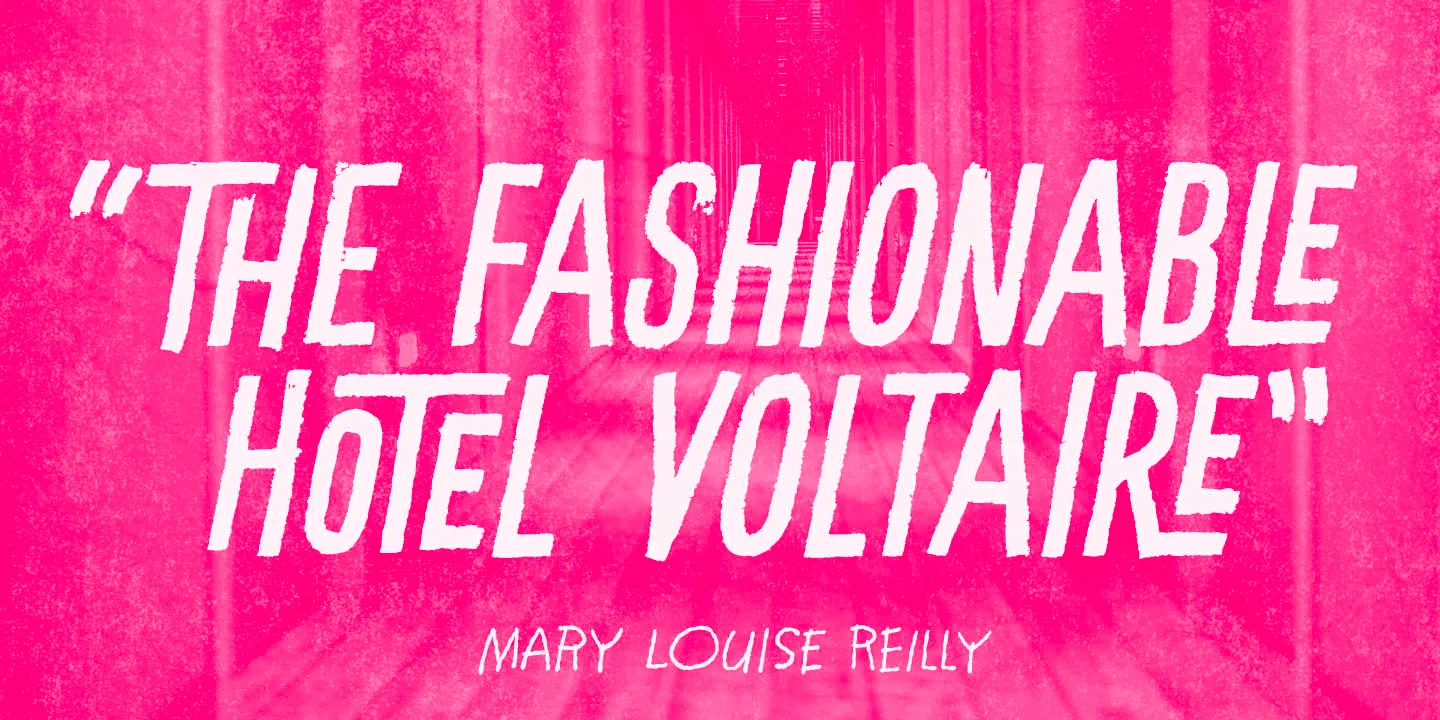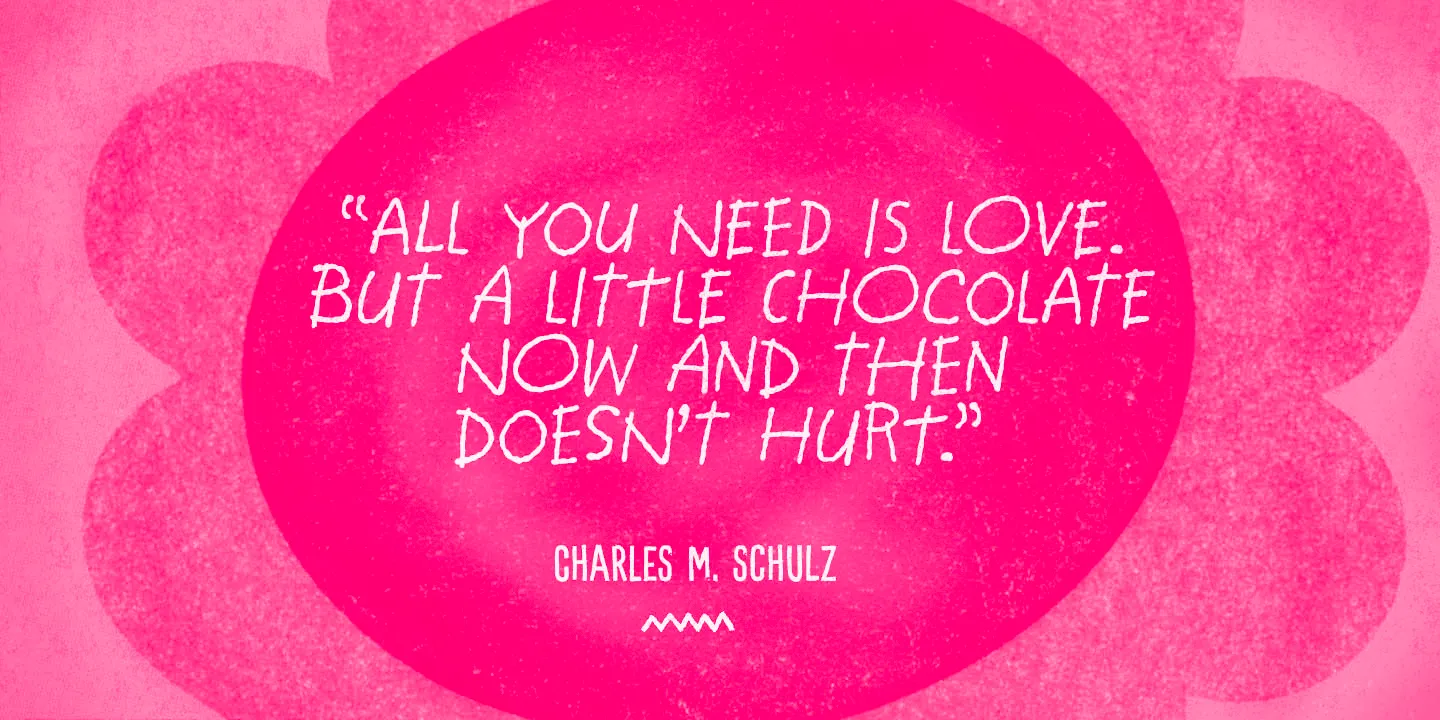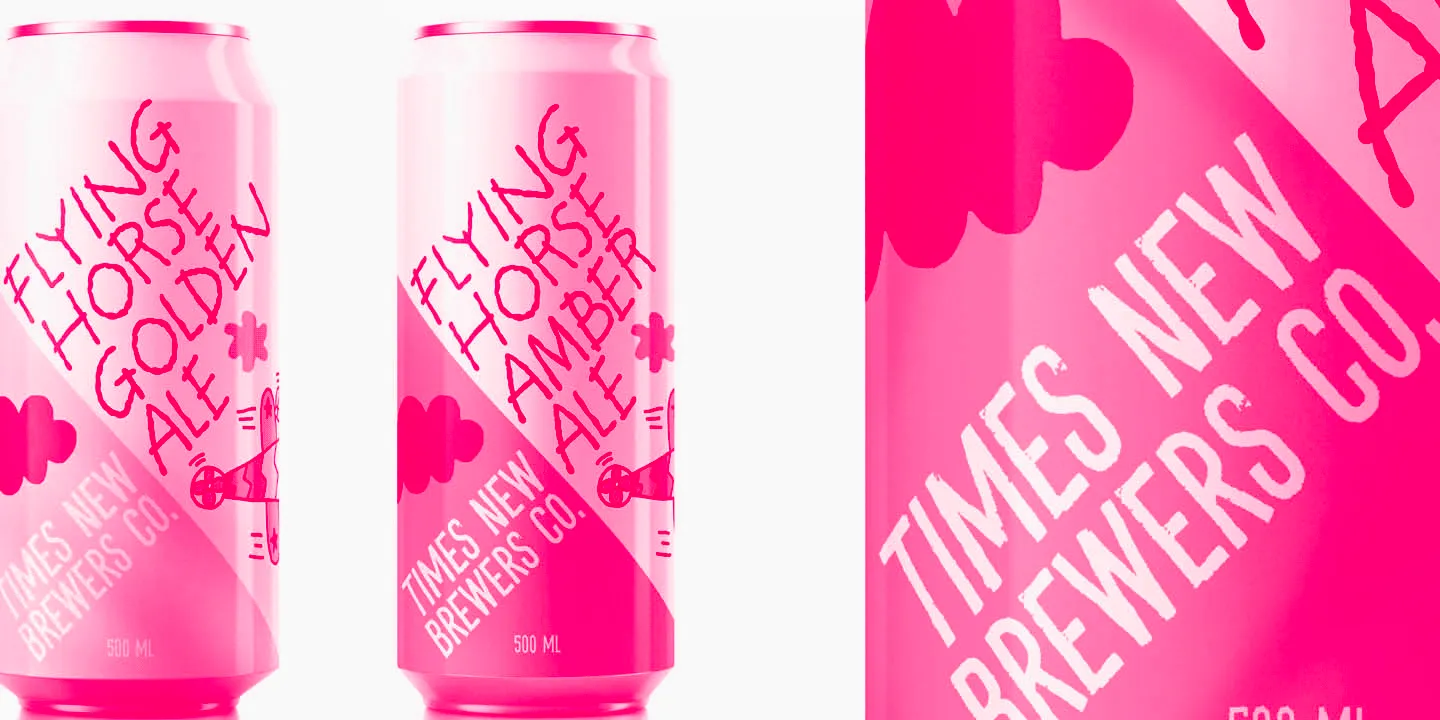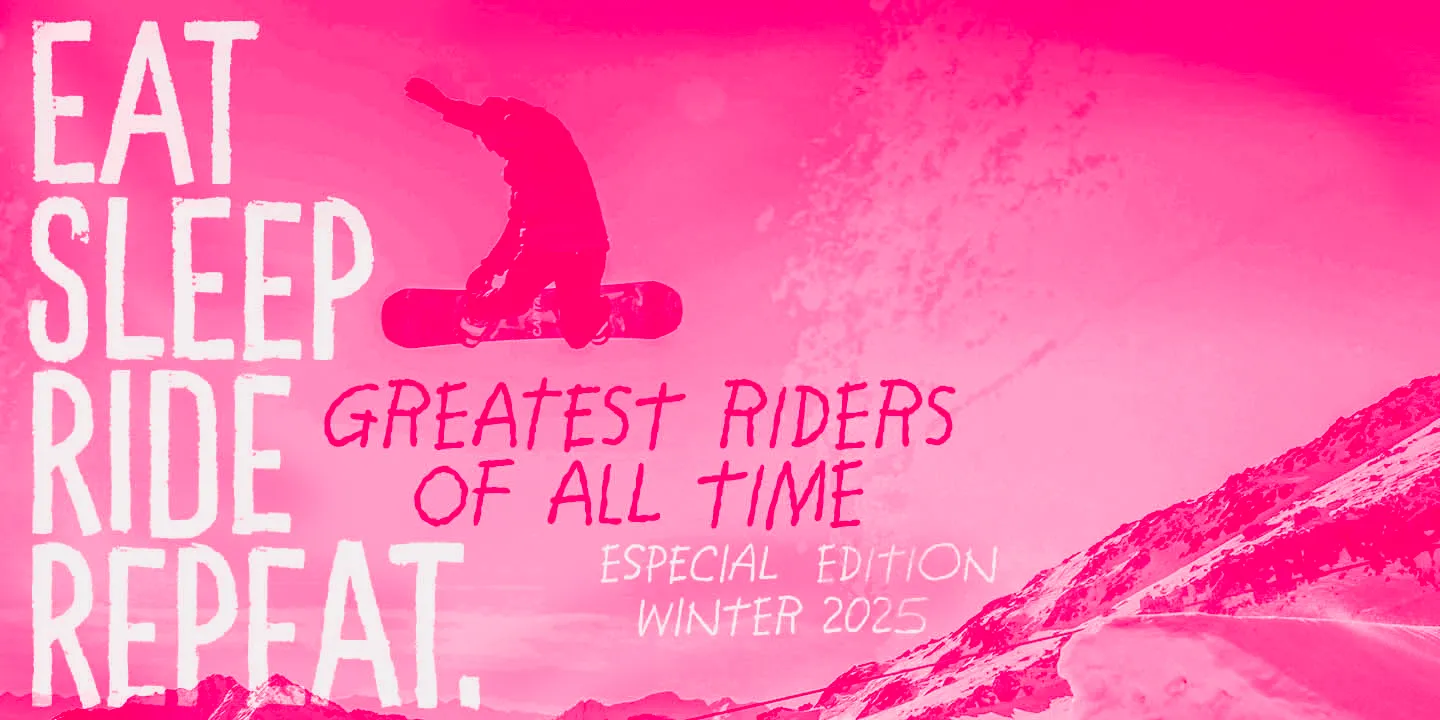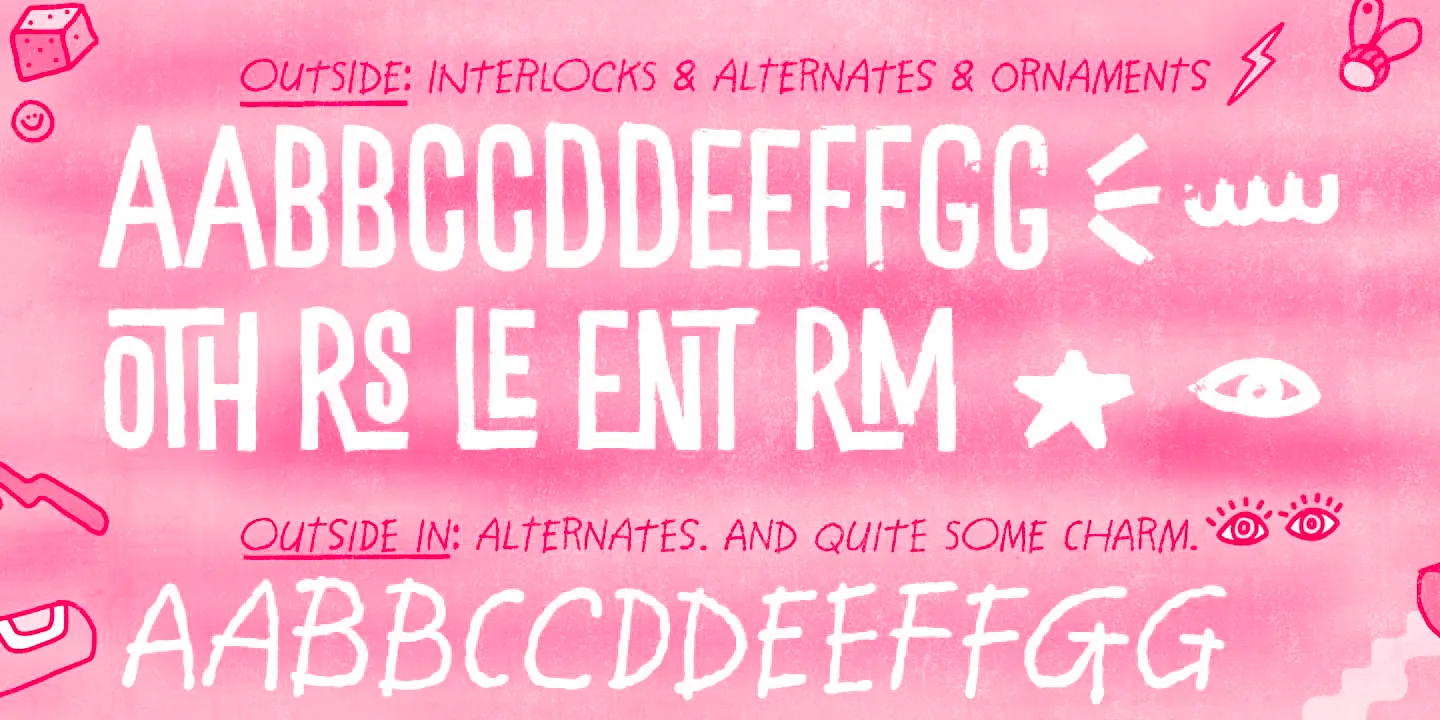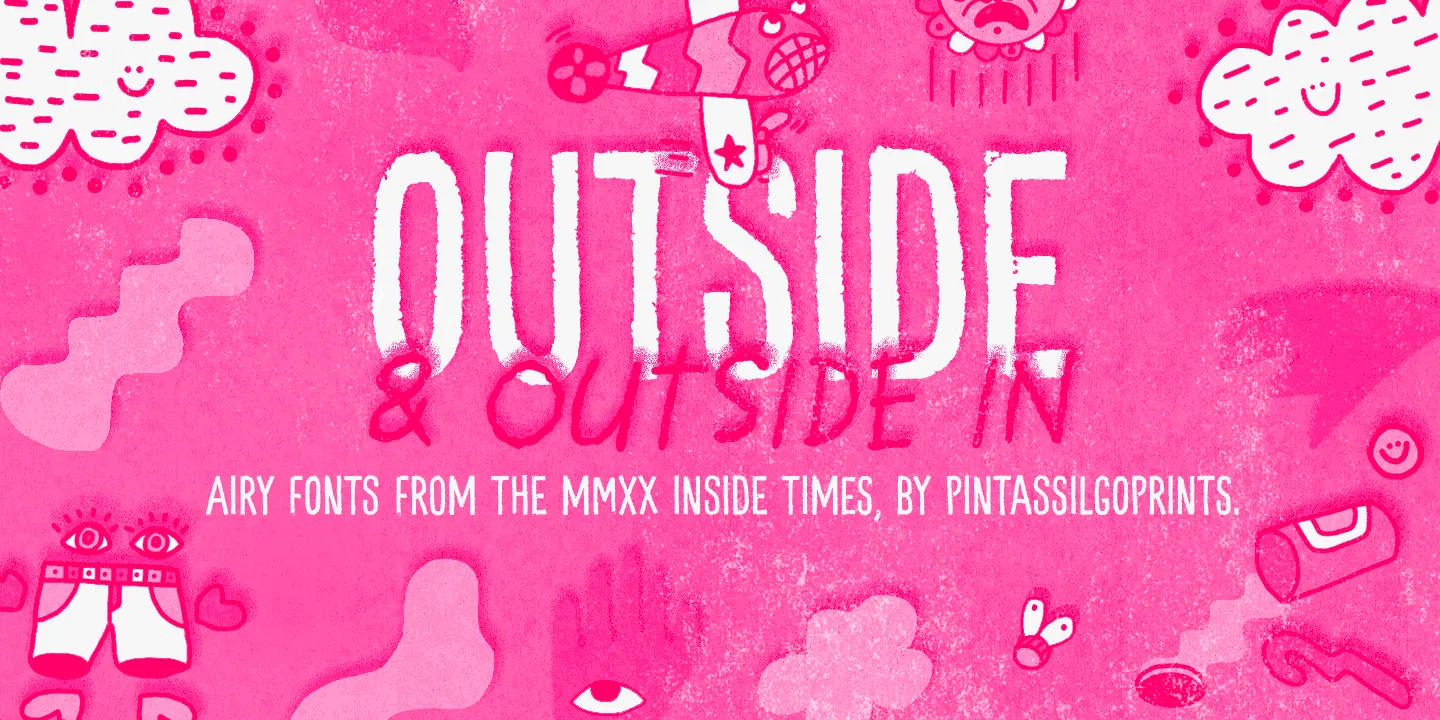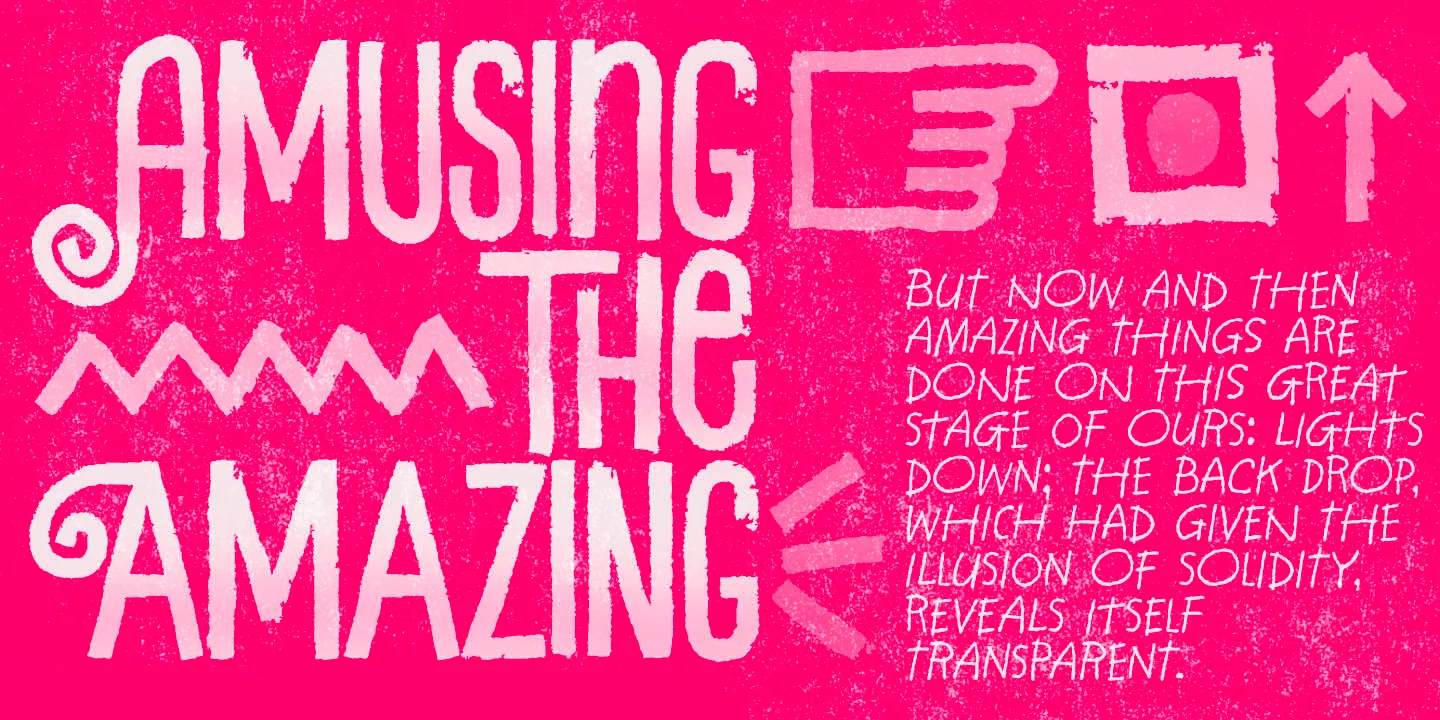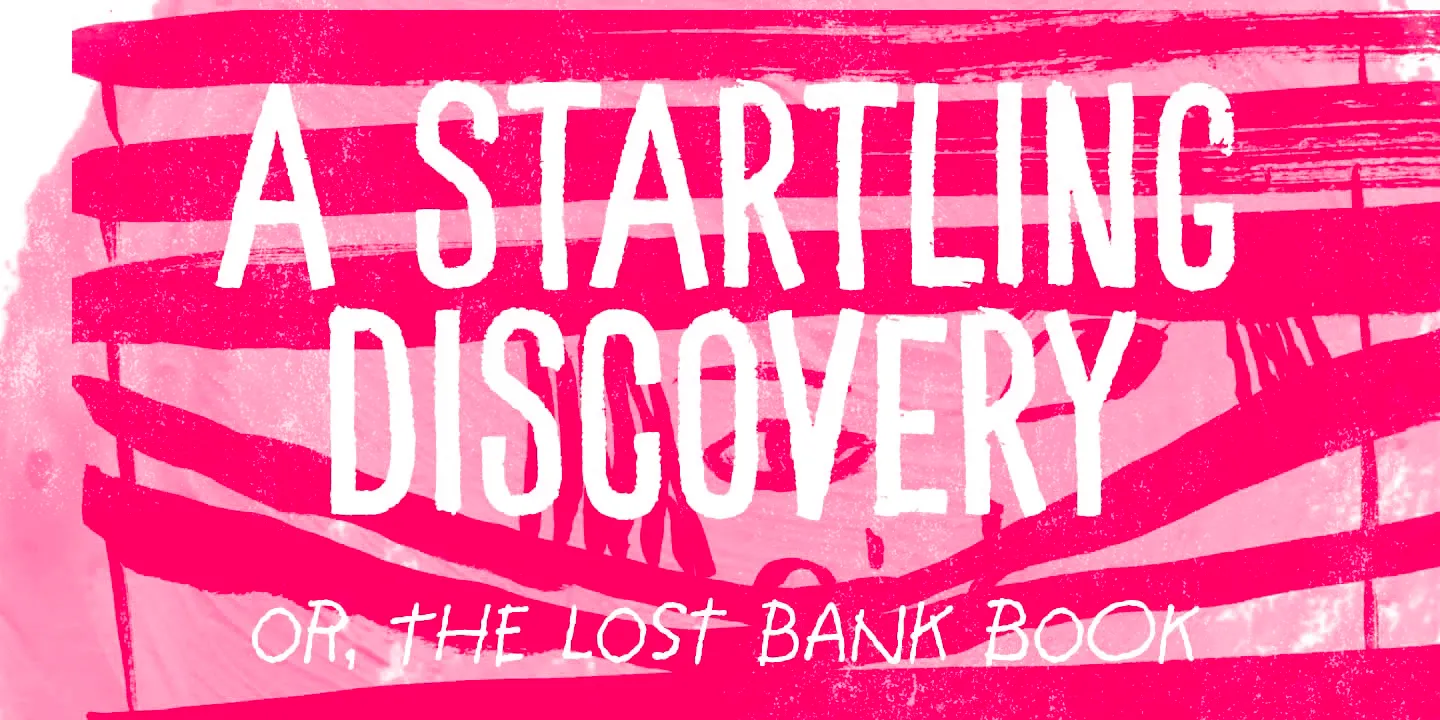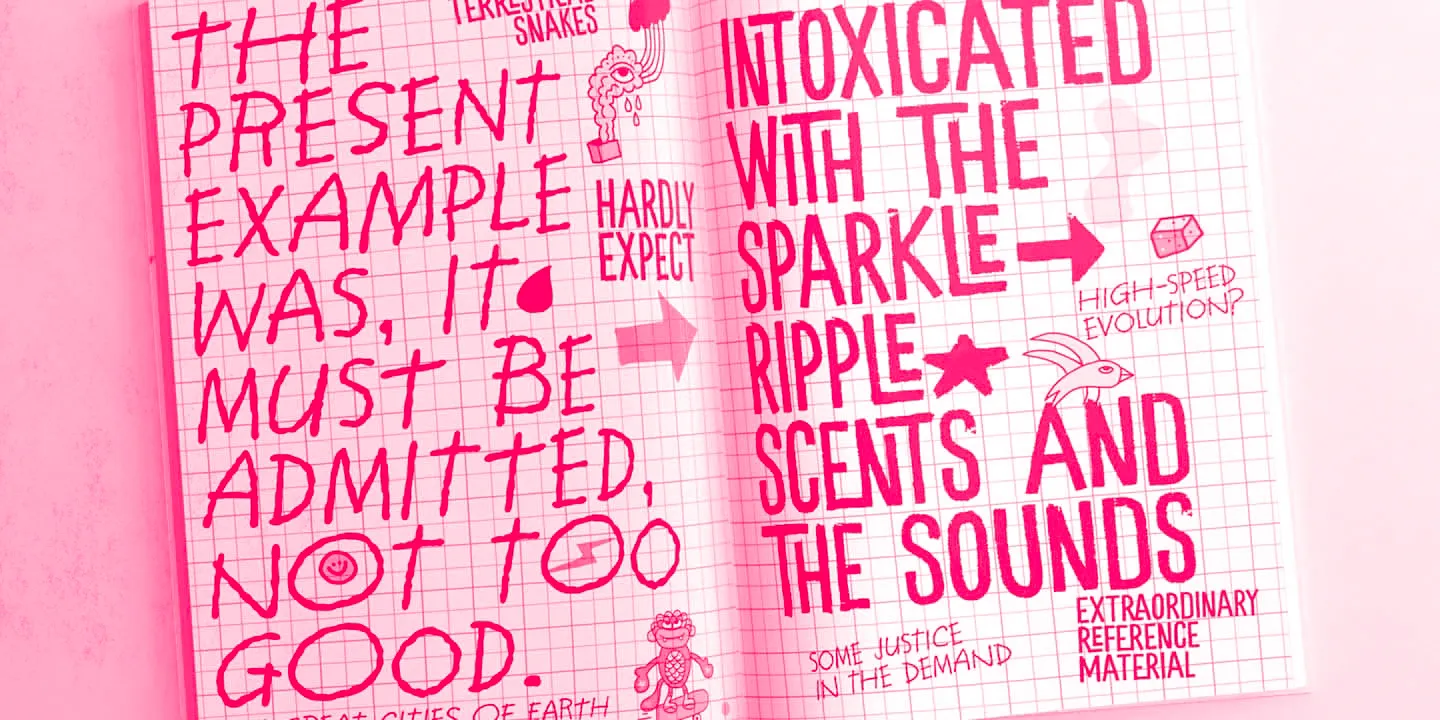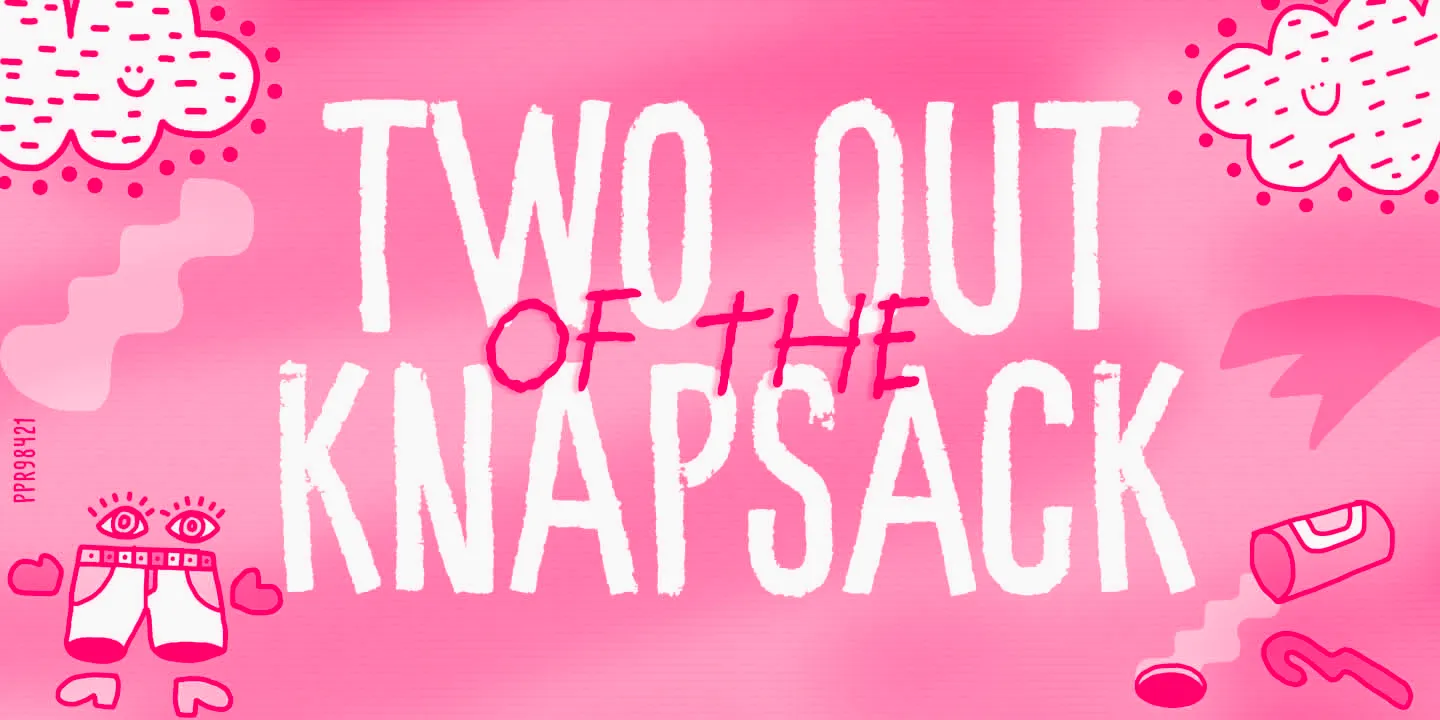
Outside Font Family
• Outside In
• Outside Regular
Outside
Outside is a laid-back, hand-lettered font family with two expressive styles. Outside In is a spirited script suggestive of notes scrawled in the moment, and Outside Regular, by contrast, is a tall, all-caps sans with a dry-brush texture and solid structure. Used together or separately, they offer a balanced mix of spontaneity and presence — ideal for book covers, handmade goods, packaging, posters, or any design aiming for authentic human energy. Give it a try, easy-going-ness guaranteed!
• Discretionary Ligatures
• Ornaments